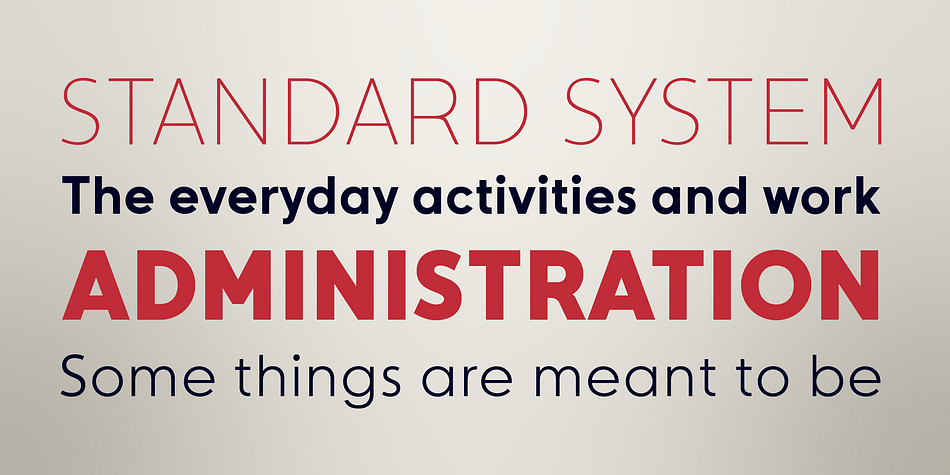
Everest Pro
Designed by Nikolay Savchuk, Everest Pro is a sans serif font family. This typeface has twenty-four styles and was published by NicolassFonts.
The complete family contains 24 weights, 1568 glyphs in each font, and supports OpenType features. RAlt sub-family has rounded corners. Everest Pro family is ideally suited for advertising, packaging, brand identity, books, magazines, logotype, software, sports as well as web and screen design.
Designer Nikolay Savchuk